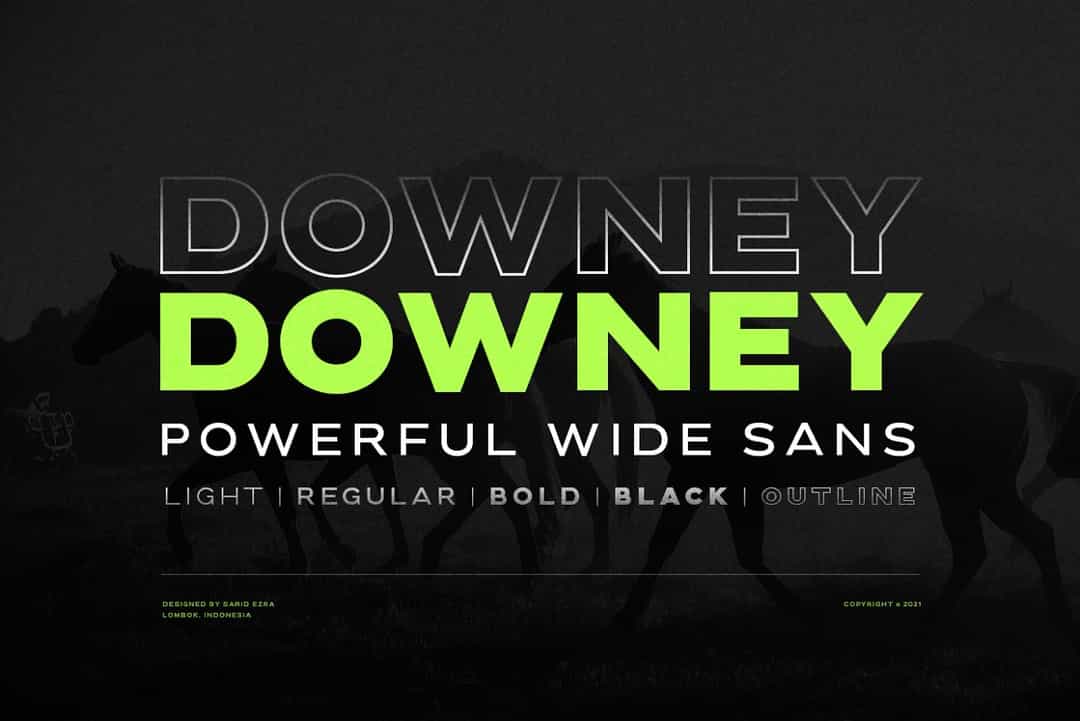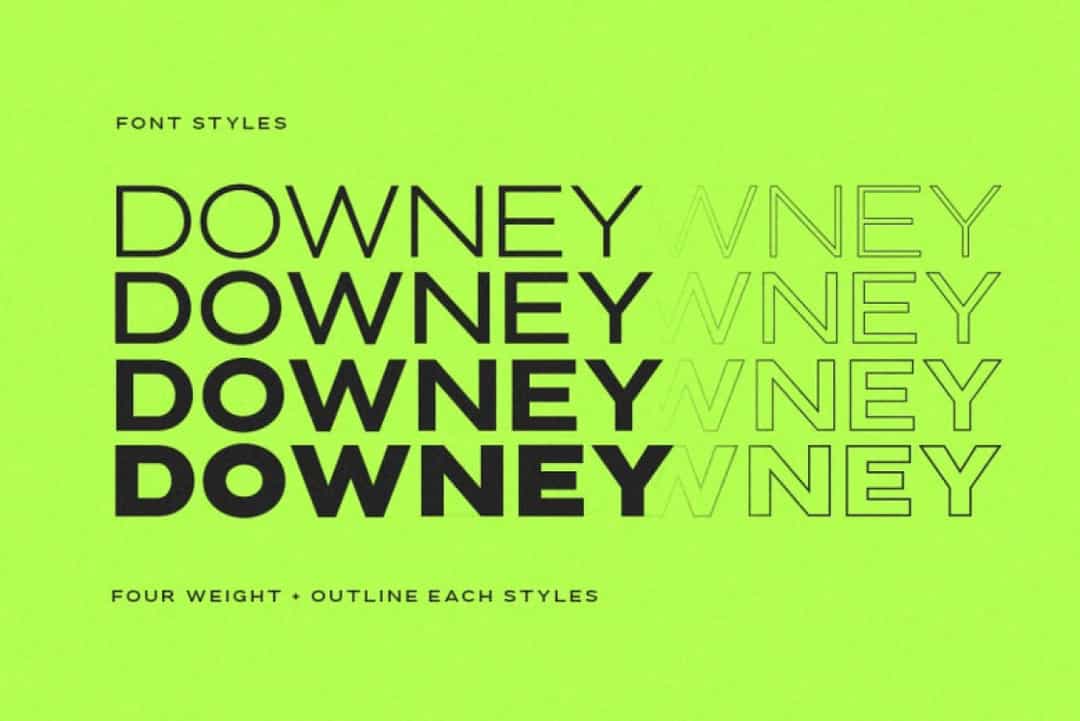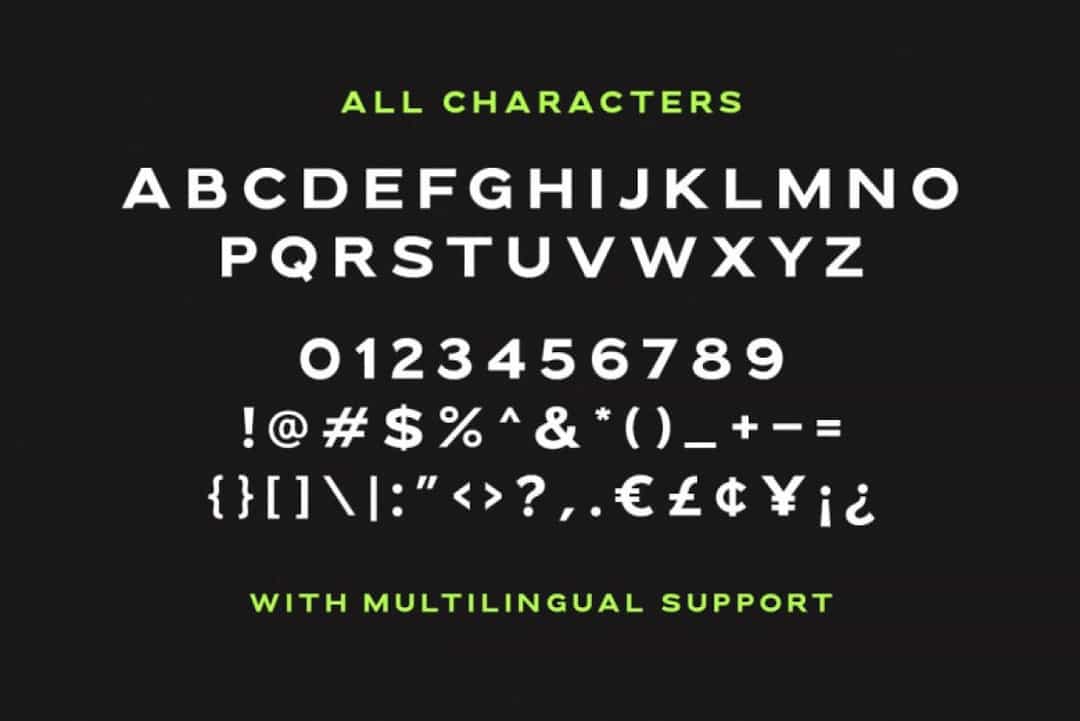
Downey Font Family! Downey is an easy and indispensable full-caps sans font with an open form that looks strong. Perfect for use across a range of projects or designs. Use it for creating an inscription, logo or quotes – or as the perfect accent font with any typeface! Each weight comes complete with an outline version; plus it supports multilingual languages!